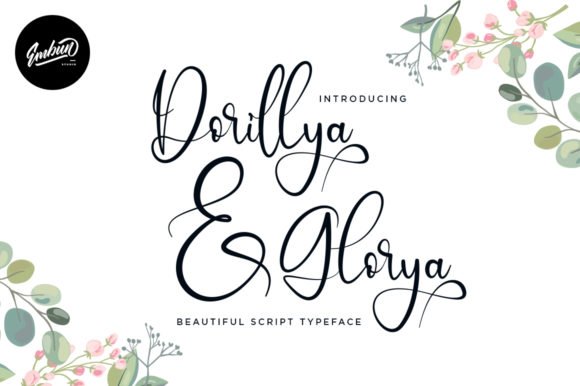
Unleashing the Art of Classic Calligraphy
Have you ever found yourself stuck in a design rut, searching for that one font that would elevate your project from good to great? We’ve all been there. It’s a moment of pure creative frustration, when every font you try just doesn’t seem to fit. But what if I told you that there’s a font that’s about to change everything?
Meet the Dorillya & Glorya Font, a stunning tribute to classic calligraphy that’s sure to inspire your next design project. With its gorgeous swashes and alternates, this font is a game-changer for designers looking to add a touch of elegance and sophistication to their work. Whether you’re creating a wedding invitation, a logo, or a branding package, the Dorillya & Glorya Font is the perfect choice to turn any design idea into a true standout.
Dorillya & Glorya Font Key Features
- Unique Characteristics: The Dorillya & Glorya font features a unique blend of elegant and modern elements, with intricate details and ornate flourishes that add a touch of sophistication to any design.
Dorillya & Glorya Font Review
At first glance, the Dorillya & Glorya font caught my attention with its elegant and feminine design. It’s perfect for projects that require a touch of sophistication and whimsy. ✨
One of the things that I appreciate about this font is its versatility. It can be used for a wide range of applications, from wedding invitations to fashion brands. The script and cursive styles work well together to create a unique and eye-catching combination. ✨
However, I did encounter some limitations when using the font. The font size and line spacing can be a bit inconsistent, which may require some manual adjustments to achieve the desired look. Additionally, the font may not render as well on certain devices or browsers, which could be a concern for web designers. ⚠️
Here are some pros and cons to consider:
- ✨ Elegant and feminine design
- ✨ Versatile and suitable for various applications
- ✨ Unique and eye-catching combination of script and cursive styles
- ⚠️ Inconsistent font size and line spacing
- ⚠️ Potential rendering issues on certain devices or browsers
Overall, I would recommend the Dorillya & Glorya font for designers who are looking for a unique and sophisticated font for their projects. However, it may require some additional tweaking to achieve the desired results.
To get the most out of the Dorillya & Glorya font, use it for:
- Special occasion cards and gifts
Remember to pair the font with a clean and simple design to let the elegance of the font shine through.